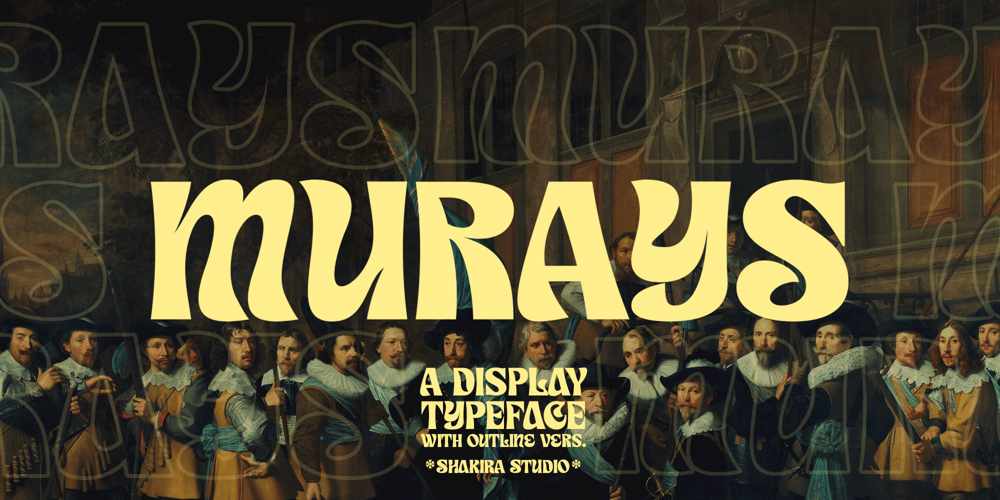
Murays Font Family was designed by Idhham Cholid Rikzano Yahya and published by Shakira Studio. Murays contains 2 styles and family package options. I’m present to you, new retro serif called Murays!Murays is a display retro font with a fun and bold style that perfect for your projects such as poster design, branding materials, t-shirt, business cards, logo, photography, quotes, and more. Try out some alternate characters for another visual result!This font support for some multilingual. Also contains uppercase A-Z and lowercase a-z, alternate character, numbers 0-9, and some punctuation.What you get Letters, numbers, punctuation, multilingual support, alternate and ligature Regular and Outline version If you need help, just write me! Thanks so much for checking out my shop!